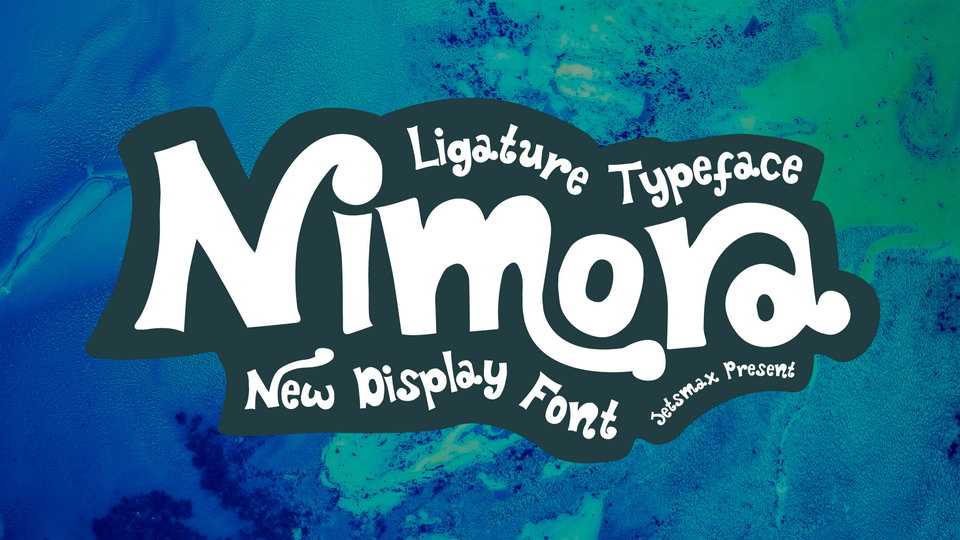
Nimora Font › Fontesk – Download Grátis
Download Nimora font, a fun and playful typeface inspired by the freshness of cold water in a hot summer day, splash! With its unique handwriting style, this ligature Nimora will show the fun side of your projects.
Designer: Jetsmax Studio